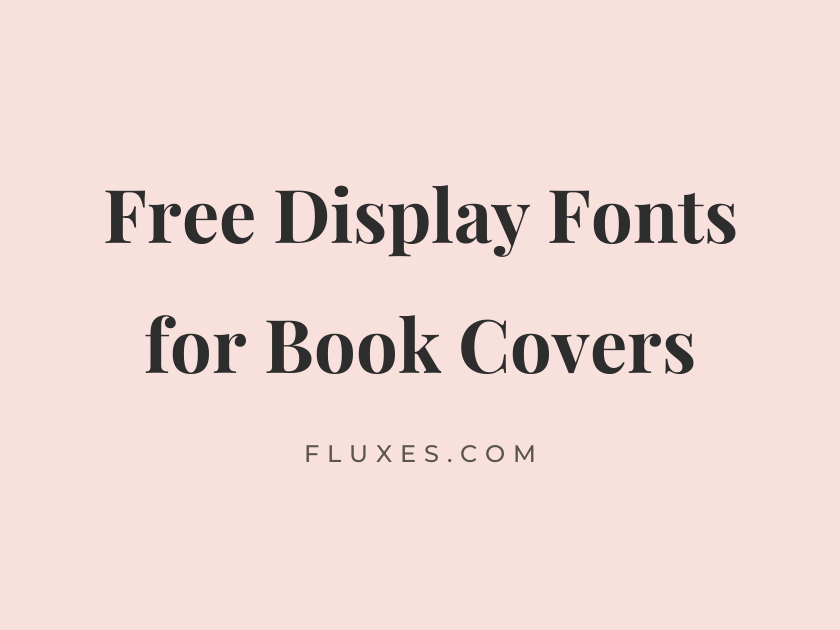
77 Best Free Display Fonts for Book Covers
A book cover has about half a second to make its case, and most of that argument is carried by the title type. Genre fiction leans on display fonts to signal mood before a reader reads a single word blurb: a jagged blackletter says horror, a sun-bleached slab says western, a trembling script says romance. The good news for indie authors and small presses is that some of the most versatile display faces in the world are free to download and license through Google Fonts, with no royalty owed no matter how many covers, print runs, or ebook thumbnails they end up on.
What follows is a wide survey of free display fonts that hold up as book cover type, organized loosely by the moods and genres they tend to serve, from literary fiction and memoir to horror, romance, fantasy, and pulp thrillers. All are legitimate Google Fonts, so they install instantly and pair with a huge range of free body text faces for the back-cover copy and interior matter.
1. Playfair Display
Playfair Display is the reigning workhorse of literary book covers, and for good reason. Its hairline-thin strokes against dramatic thicks give it the high-contrast glamour of a Didone without tipping into the coldness of Bodoni, which is why it shows up on everything from upmarket women’s fiction to serious nonfiction.
At very small sizes those fine hairlines can thin out to nothing, so it earns its keep best at title size rather than in a subtitle line.
2. Abril Fatface
Abril Fatface brings a magazine-cover swagger to fiction titles, all fat curves and confident weight. It reads well from across a bookstore table, which makes it a smart pick for thrillers and commercial fiction that need to dominate a thumbnail.
3. Bodoni Moda
Bodoni Moda updates the classic Italian Didone for screens without losing its theatrical vertical stress, giving historical fiction and glossy romance covers an old-money elegance.
4. DM Serif Display
Understated but not plain, DM Serif Display has a soft, almost literary warmth in its curves that suits memoir and quiet literary fiction better than anything shouting for attention.
5. Libre Caslon Display
Libre Caslon Display takes the bookish authority of Caslon and stretches it into a genuinely striking title face, tight-fitting and confident. It carries the weight of a classic without feeling like a reprint of one.
6. Fraunces
Fraunces has become a favorite among indie publishers for its wonky, almost hand-cut old-style details, a serif with real personality rather than corporate polish. It flatters literary fiction, essay collections, and any cover chasing a warm, contemporary-yet-vintage feel, and its variable axes let a designer dial the quirkiness up or down.
7. Cormorant Garamond
Cormorant Garamond is a fashion-forward reinterpretation of Garamond’s calligraphic elegance, thin and refined enough to feel expensive at large display sizes on period fiction and poetry collections.
8. Spectral
Spectral splits the difference between a screen-friendly text face and a display face, giving it a restrained, editorial gravity well suited to literary thrillers and serious nonfiction titles.
9. Frank Ruhl Libre
Frank Ruhl Libre carries an old-world, almost scholarly weight inherited from its Hebrew-type origins, and it lends historical and literary fiction covers a sense of gravity without resorting to cliché.
10. Old Standard TT
Old Standard TT looks exactly like its name suggests, a period-accurate academic serif that suits history books, classic reprints, and any cover wanting to look like it belongs on a library shelf from another century.
11. Vidaloka
Vidaloka has the slightly eccentric proportions of an old-style serif redrawn for display use, giving literary fiction covers a bookish charm that avoids the overused Playfair route.
12. Bentham
Bentham is a restrained, classical serif with roots in eighteenth-century type design, a dependable choice for reissues of literary classics or biography where the cover shouldn’t upstage the author’s name.
13. Prata
Prata’s elegant, slightly compressed letterforms give romance and women’s fiction titles a graceful, feminine silhouette without leaning on script.
14. Marcellus
Marcellus has the poise of carved stone lettering, making it a natural for historical epics, mythology retellings, and anything set in antiquity.
15. Forum
Forum leans even further into that classical-inscription feel than Marcellus, with wide, monumental capitals that work beautifully as an all-caps title treatment on historical fiction.
Limit a cover to one strong display face plus one supporting font. Stacking several loud display fonts on the same cover usually reads as amateur rather than eye-catching.
With a genre-appropriate free display font doing the heavy lifting, a cover can compete with traditionally published titles without spending a cent on licensing, leaving the budget for stock imagery, illustration, or a professional layout instead.